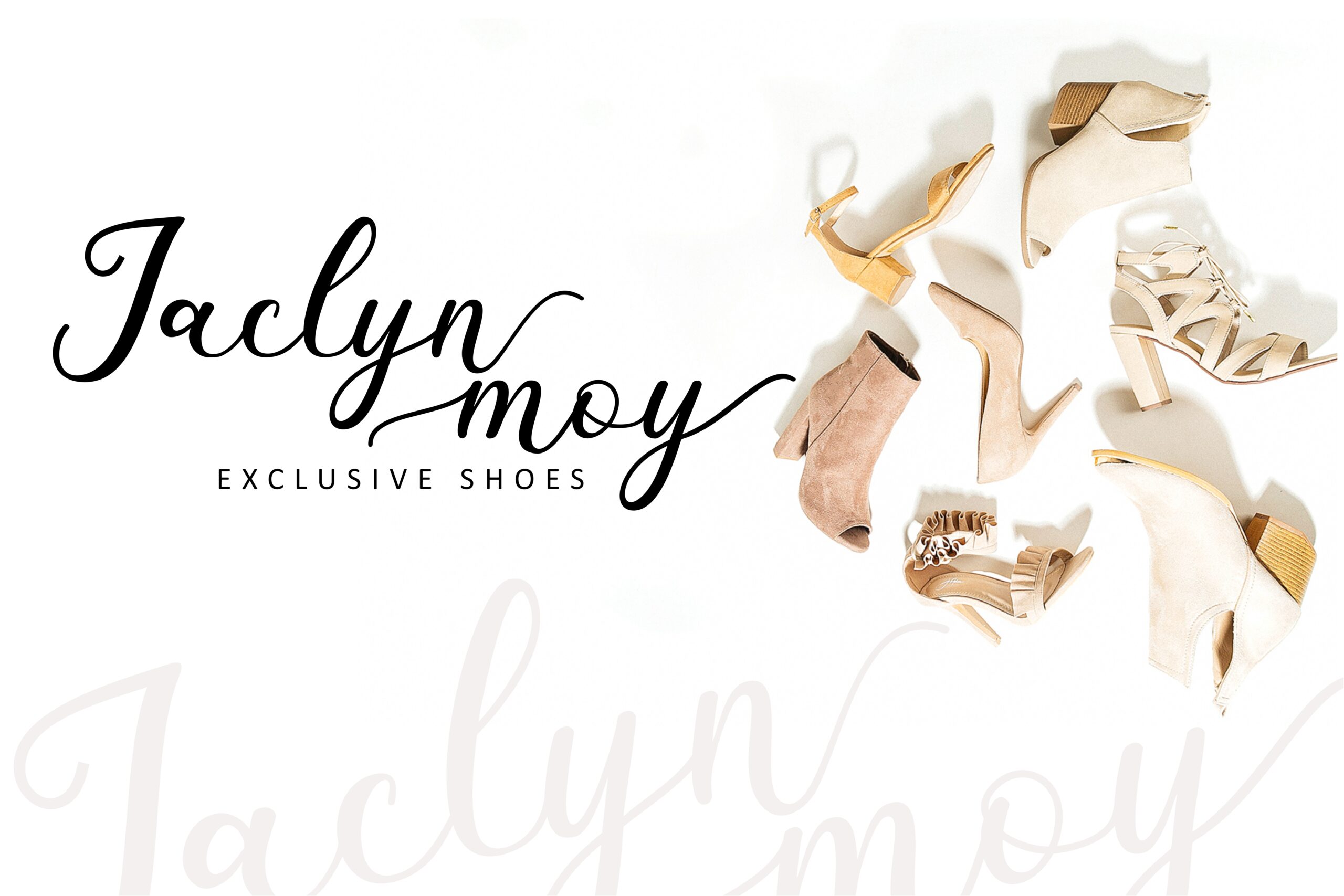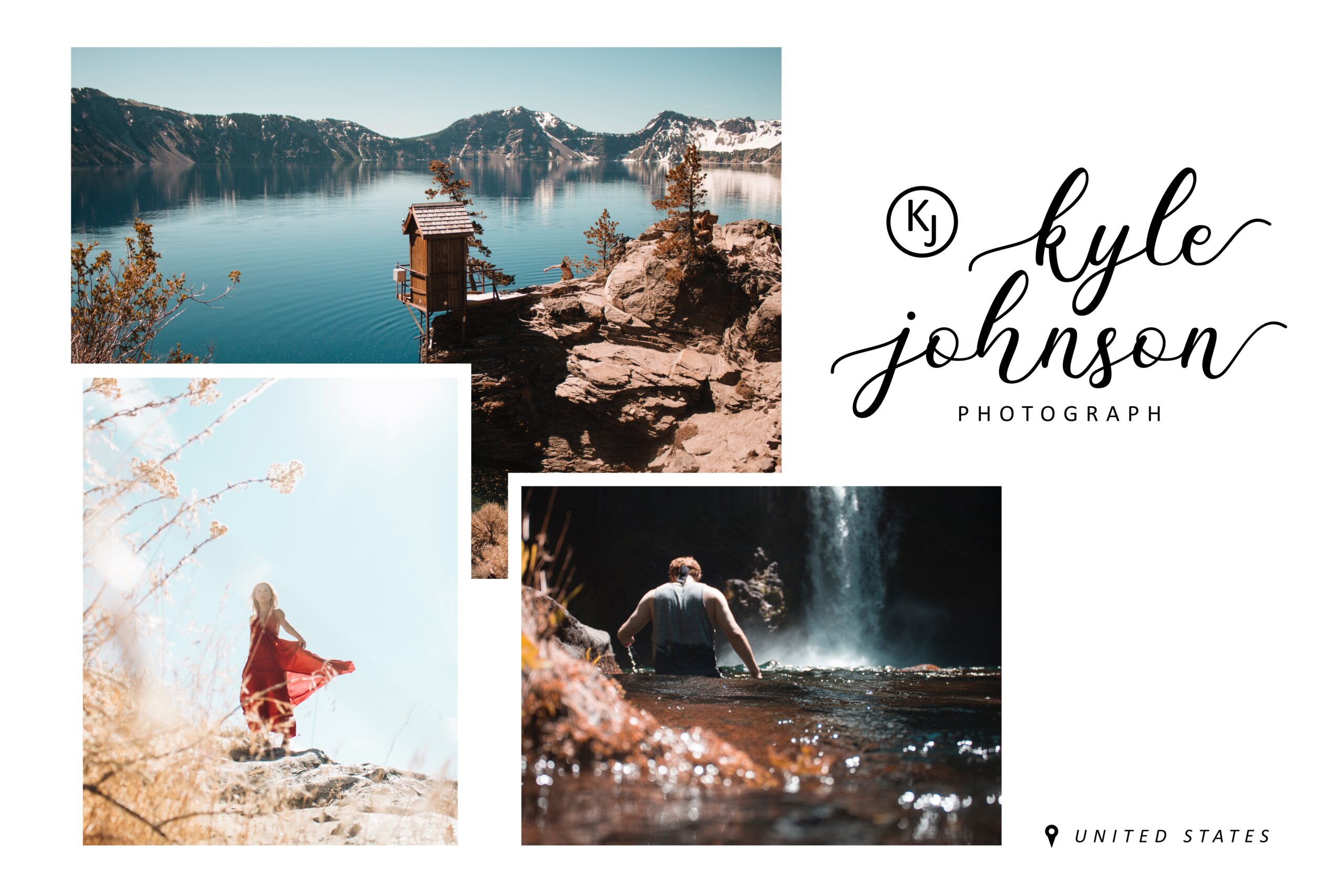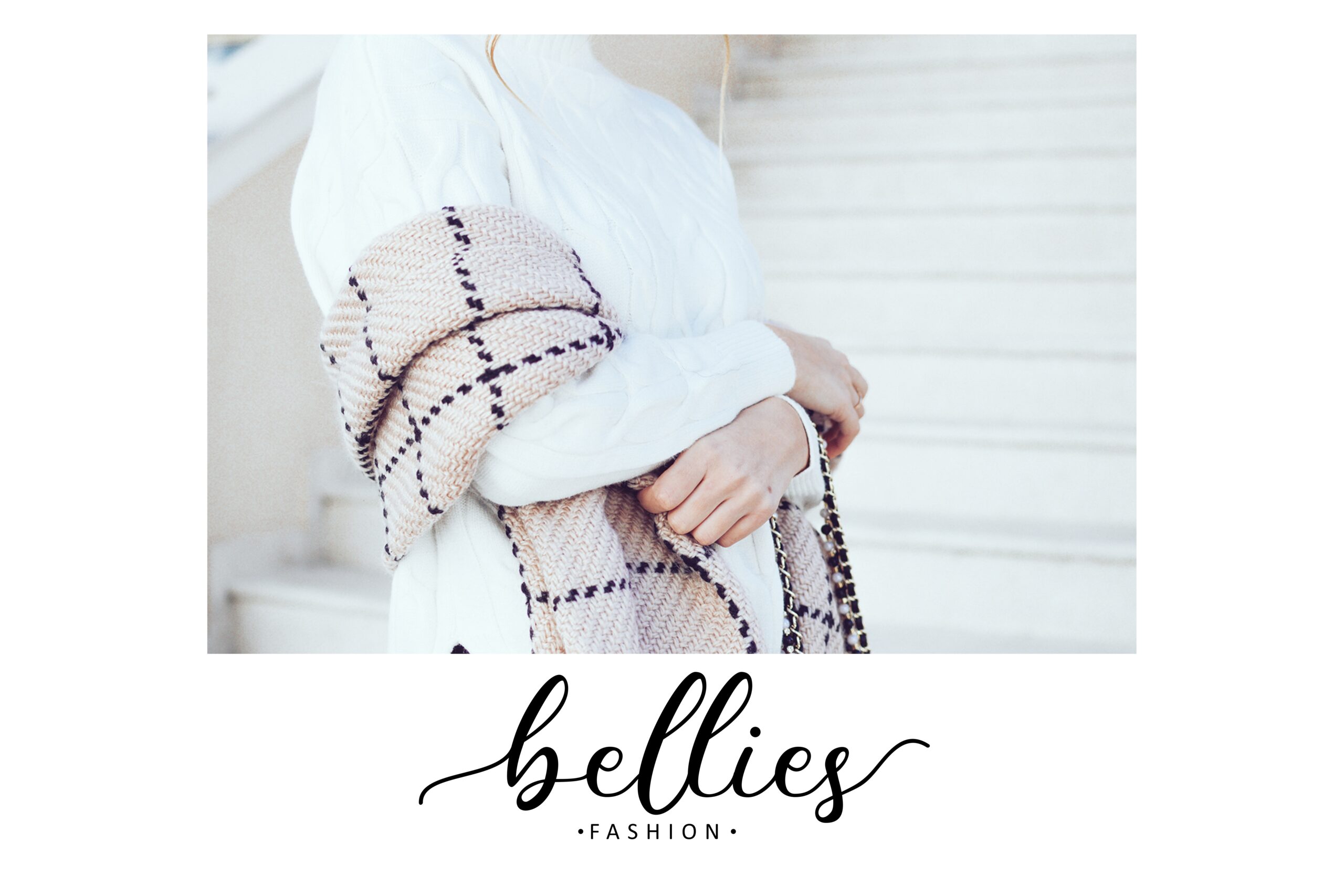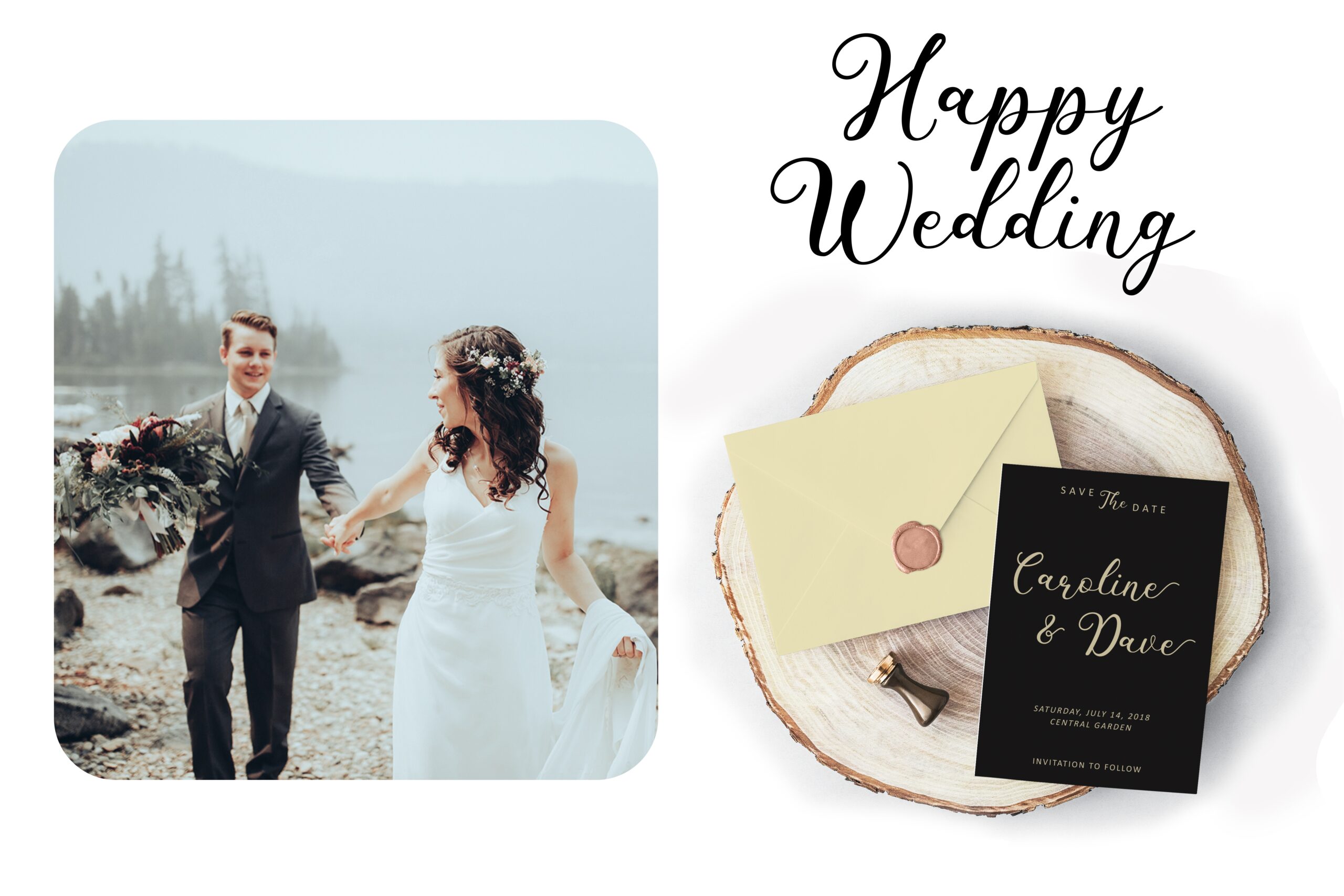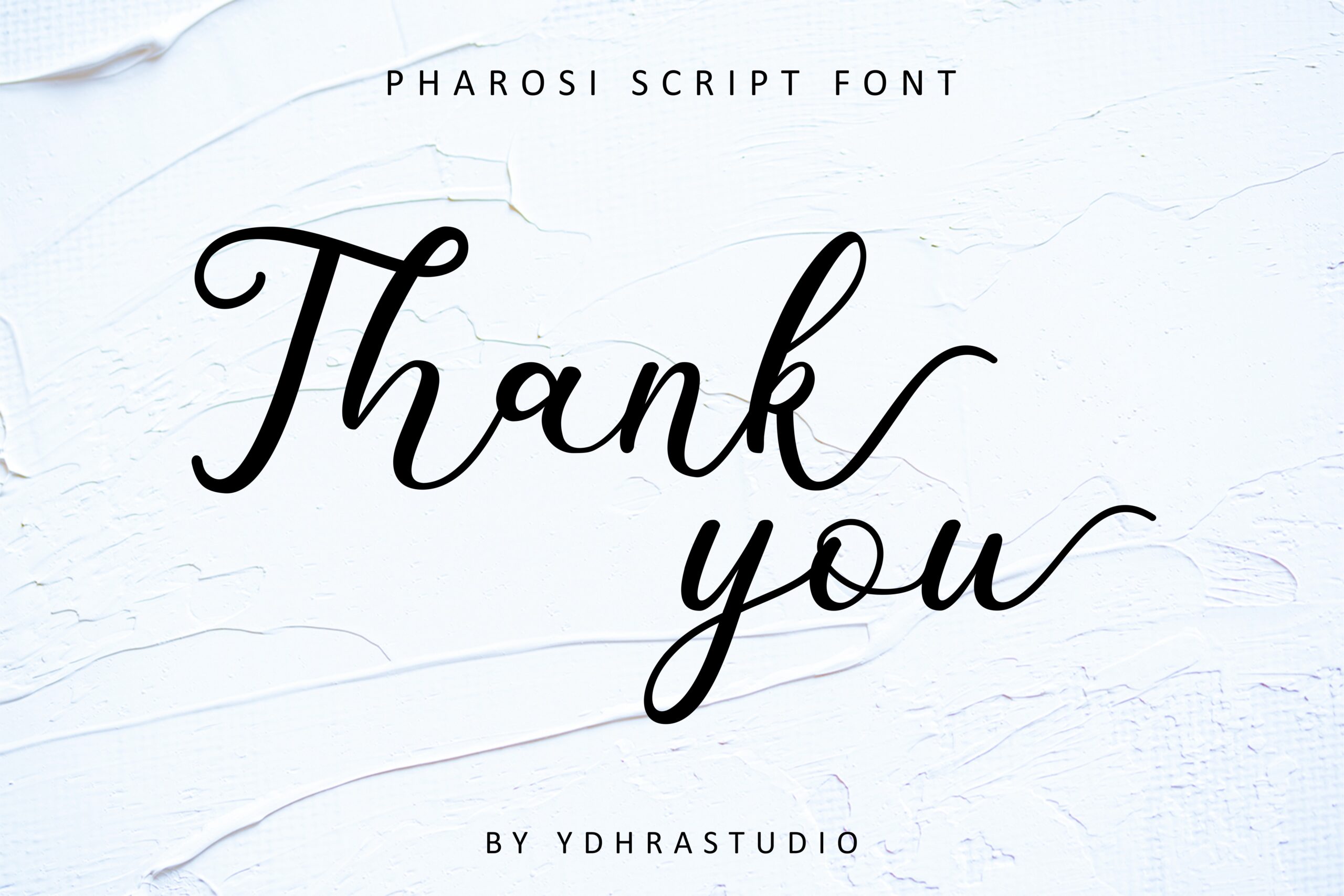
Pharosi Font
About Pharosi Font
Pharosi is a modern calligraphy font that is perfect for a wide range of uses; this beautiful script font is a great way to give your designs much needed class and style.